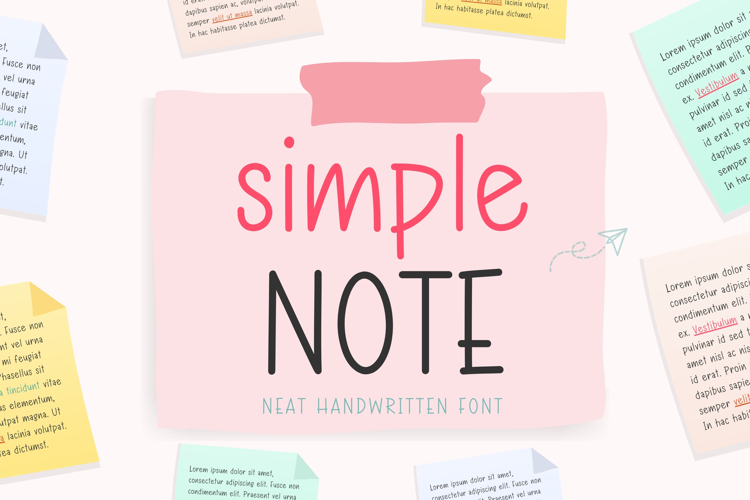
Simple Note is a neat handwritten font with a clean, friendly, and natural writing style. Its casual letterforms give your designs a handwritten feel while remaining clear and easy to read.
Notes, journals, planners, diary pages, presentations, worksheets, educational resources, greeting cards, invitations, quotes, social media graphics, branding, and digital designs.